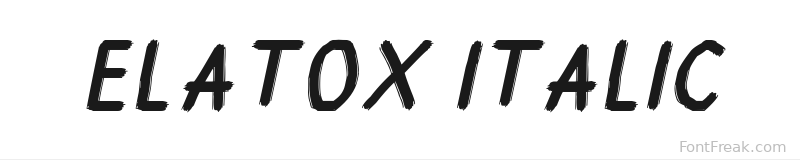
Elatox Italic
About Elatox Italic
Elatox Italic is a striking display font designed by GGBot, showcasing a unique blend of modern aesthetics and artistic flair. This font belongs to the italic category, characterized by its slanted letters that convey a sense of dynamism and energy. The strokes exhibit a moderate contrast, with thicker lines that provide a bold presence while maintaining elegance. The spacing is well-balanced, allowing for easy readability, making it suitable for various design applications.
The visual characteristics of Elatox Italic are particularly captivating. Each letter is crafted with an expressive style, featuring sharp angles and a playful yet sophisticated edge. The font's design incorporates subtle decorative elements that enhance its overall appeal without overwhelming the viewer. This makes Elatox Italic a versatile choice for a range of creative projects.
Elatox Italic is ideal for specific use cases such as wedding invitations, where its elegant slant adds a touch of romance; movie posters, where its bold presence can capture attention; restaurant menus, providing a modern twist to the dining experience; branding materials for small businesses, offering a unique identity; and event flyers that require an eye-catching headline. The target audience for this font includes graphic designers looking for fresh typographic solutions, small business owners aiming to establish a memorable brand, and content creators seeking to enhance their visual storytelling.